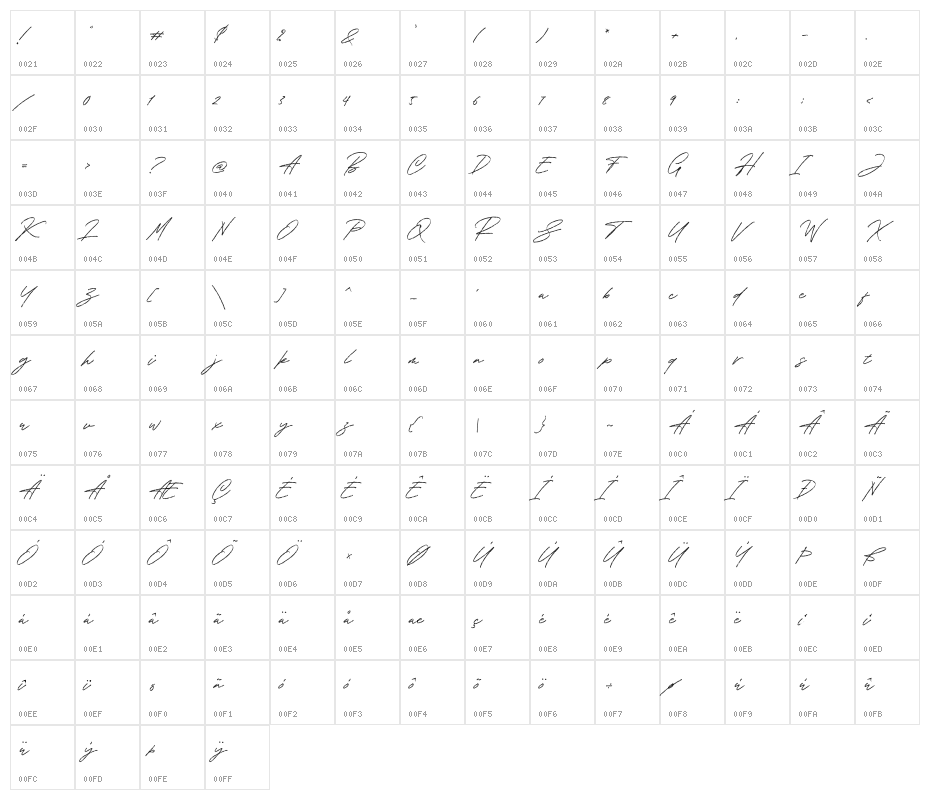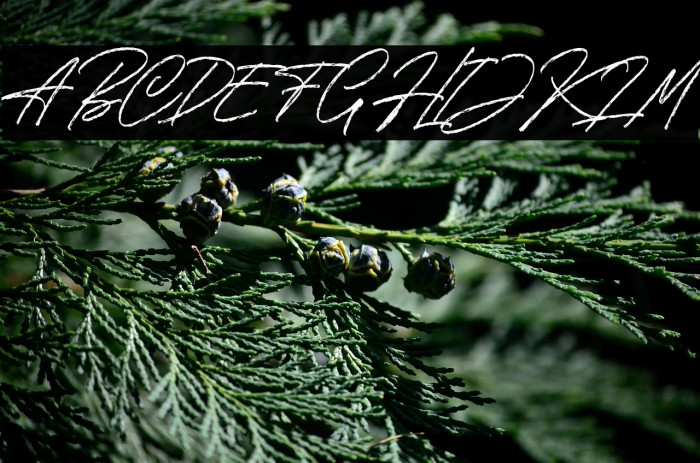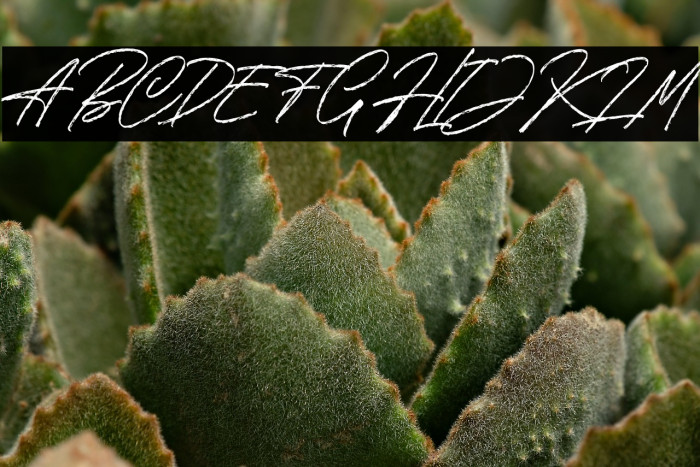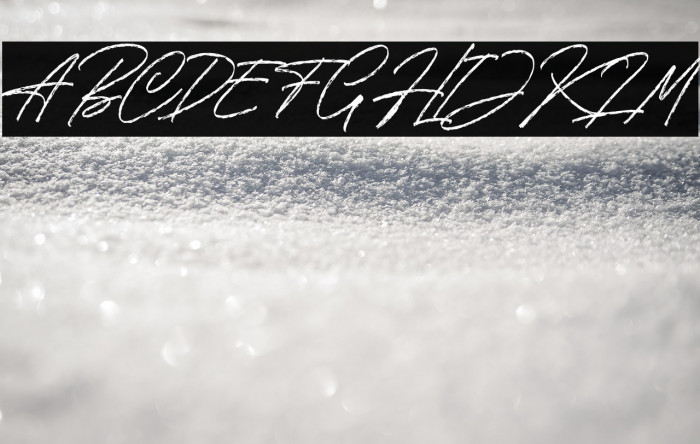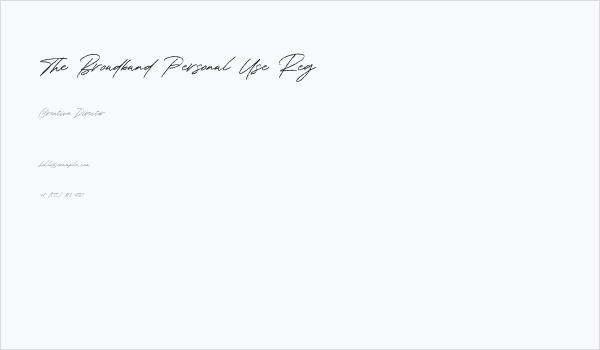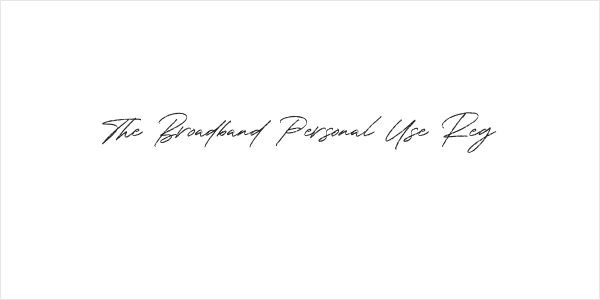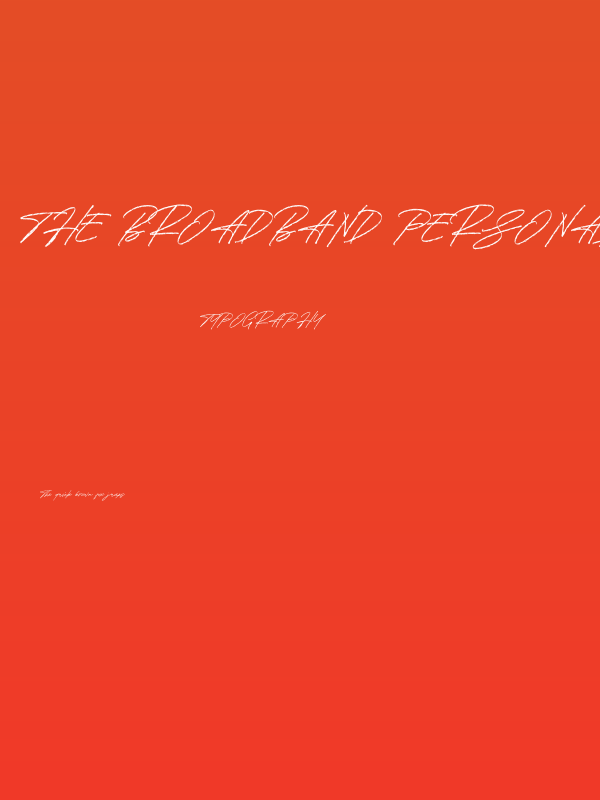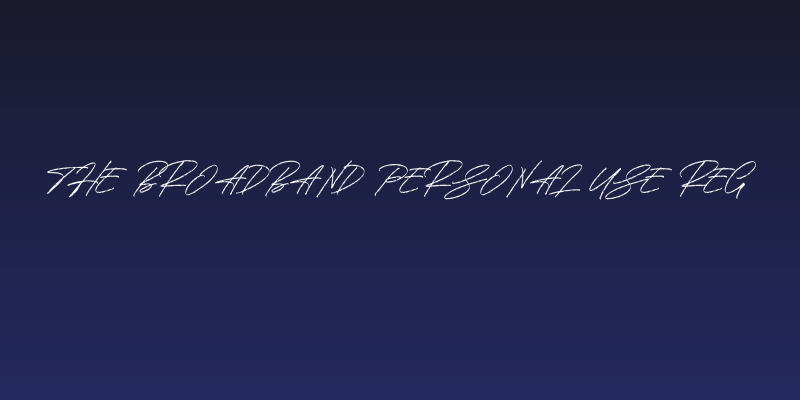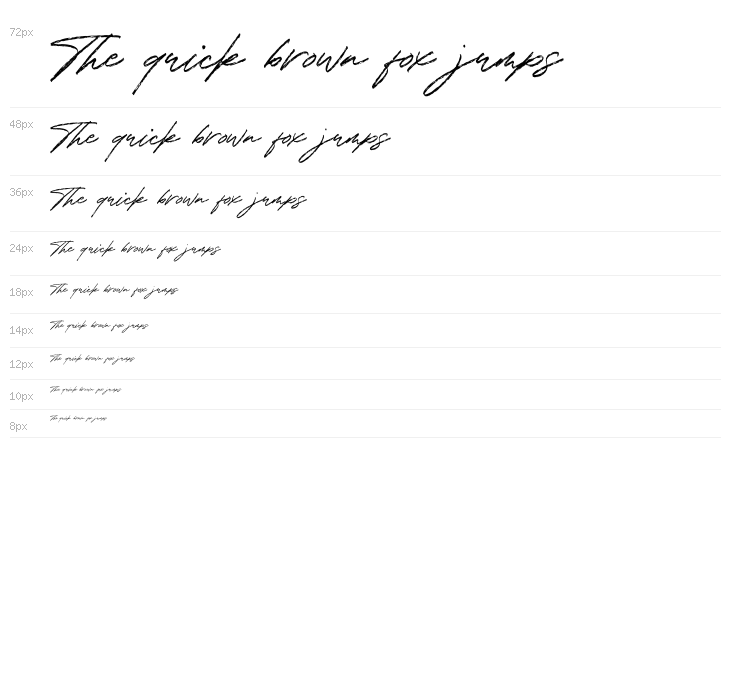
The Broadband Personal Use Reg Font
The Broadband Personal Use Reg Description
This font exhibits a fluid, cursive style reminiscent of elegant handwriting. Each character flows seamlessly into the next, creating a sense of continuity and grace. The uppercase letters are bold and sweeping, with distinctive loops and flourishes that add a touch of sophistication. The lowercase letters maintain the same fluidity, with a slightly more compact form. Numbers and special characters are designed to match the overall aesthetic, ensuring consistency across all elements. The strokes vary in thickness, providing a dynamic contrast that enhances readability while maintaining an artistic flair.
Overall StyleElegant, Handwritten
Use CaseLogos, Invitations, Artistic projects
Proposed ProjectsIdeal for wedding invitations, personal branding, elegant logos, and artistic projects requiring a handwritten touch.